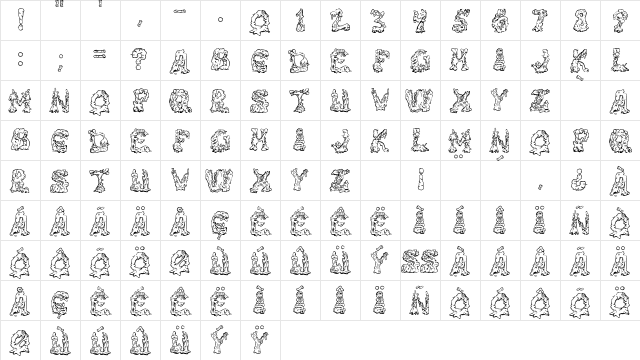
Riot Act 2 Regular
Design Context for Riot Act 2
Riot Act 2 is a composed and adaptable typeface that performs quietly and consistently across a wide range of design contexts.